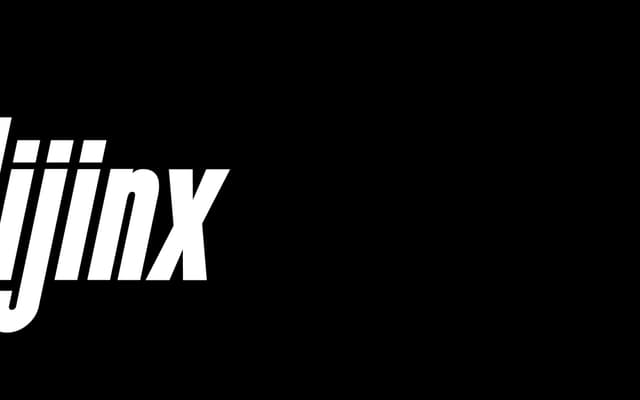
A compressed, sturdy sans serif display face offered in regular and italic with full upper and lowercase coverage and expanded Latin punctuation.
Built for headlines and display settings, Hijinx pairs a compressed structure with a solid, weighty presence. Both regular and italic styles are included, with upper and lowercase letterforms and an expanded Latin character set covering punctuation and diacritics. The compressed proportions make it well suited to tight poster layouts and editorial headers.
Described explicitly as a compressed, sturdy sans serif display type, placing it firmly in the display category with a compressed sans subcategory.